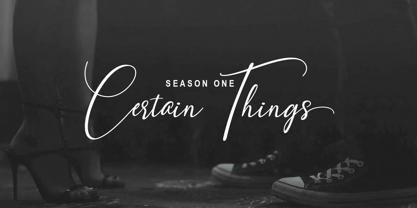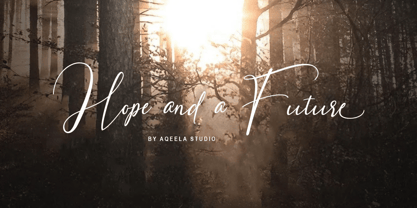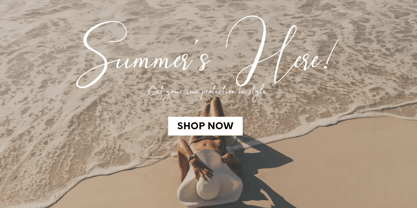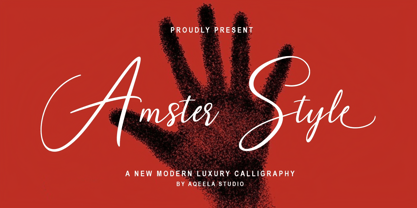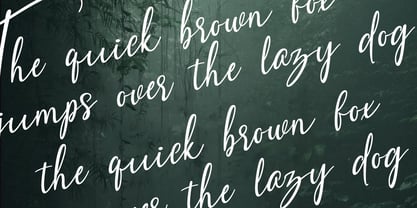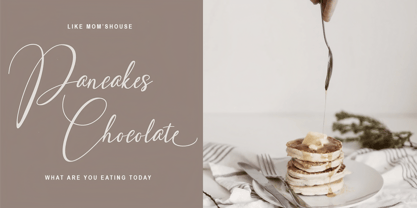
Amster Style
by Aqeela Studio
The Amster Style Font Family was designed by Muhammad Nasir and published by Aqeela Studio. Amster Style contains 1 styles. More about this family
Amster Style is a natural handwritten font, this font is Perfect for logos, invitations, stationery, wedding designs, social media posts, advertisements, product packaging, product designs, labels, photography, watermarks, special events, or anything else.
Designers: Muhammad Nasir
Foundry: Aqeela Studio